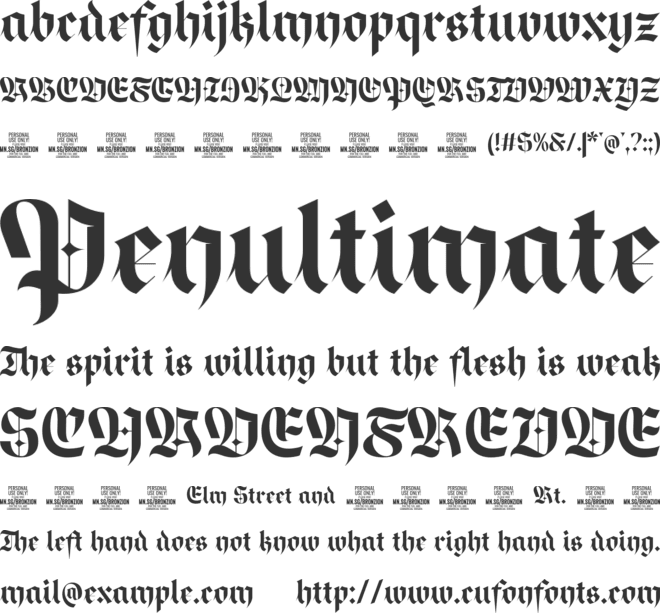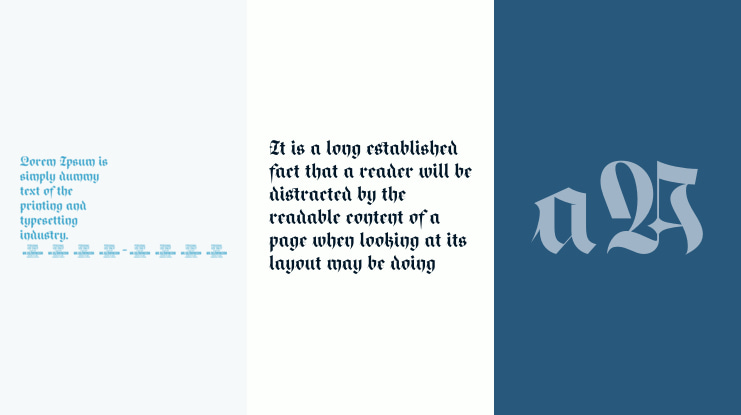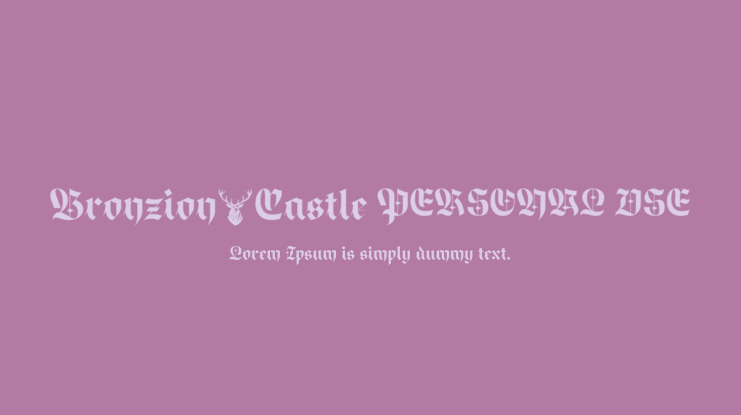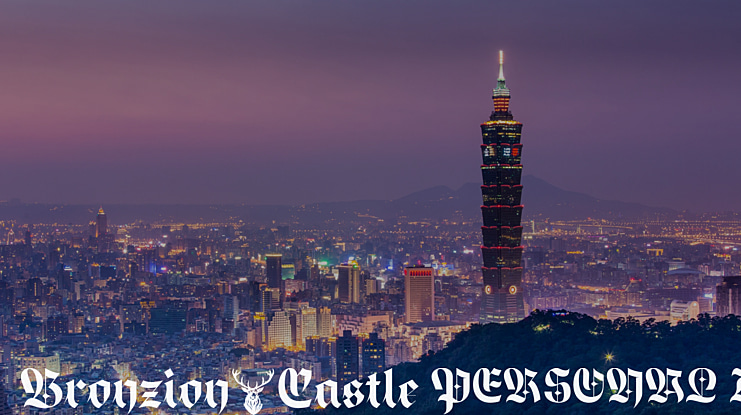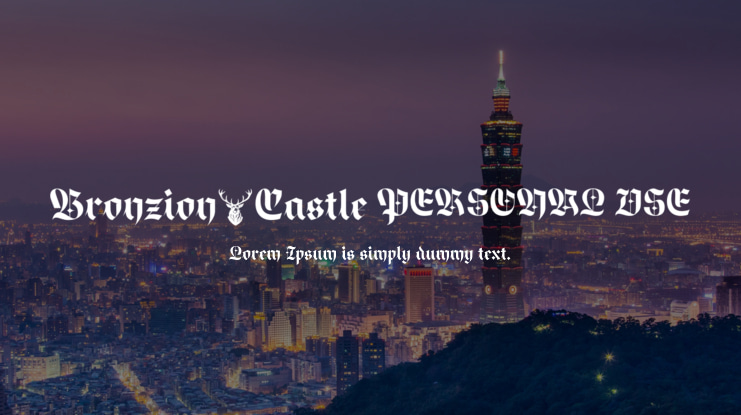
Bronzion Castle PERSONAL USE Font
Bronzion Castle captures the ornamental beauty of middle ages manuscripts while catering to modern design needs.
Use characters ???????????????????????????????????????????????????????????????????????????????????????????????????? to create heraldry-like logos and symbols.
Example: Magic????Empire